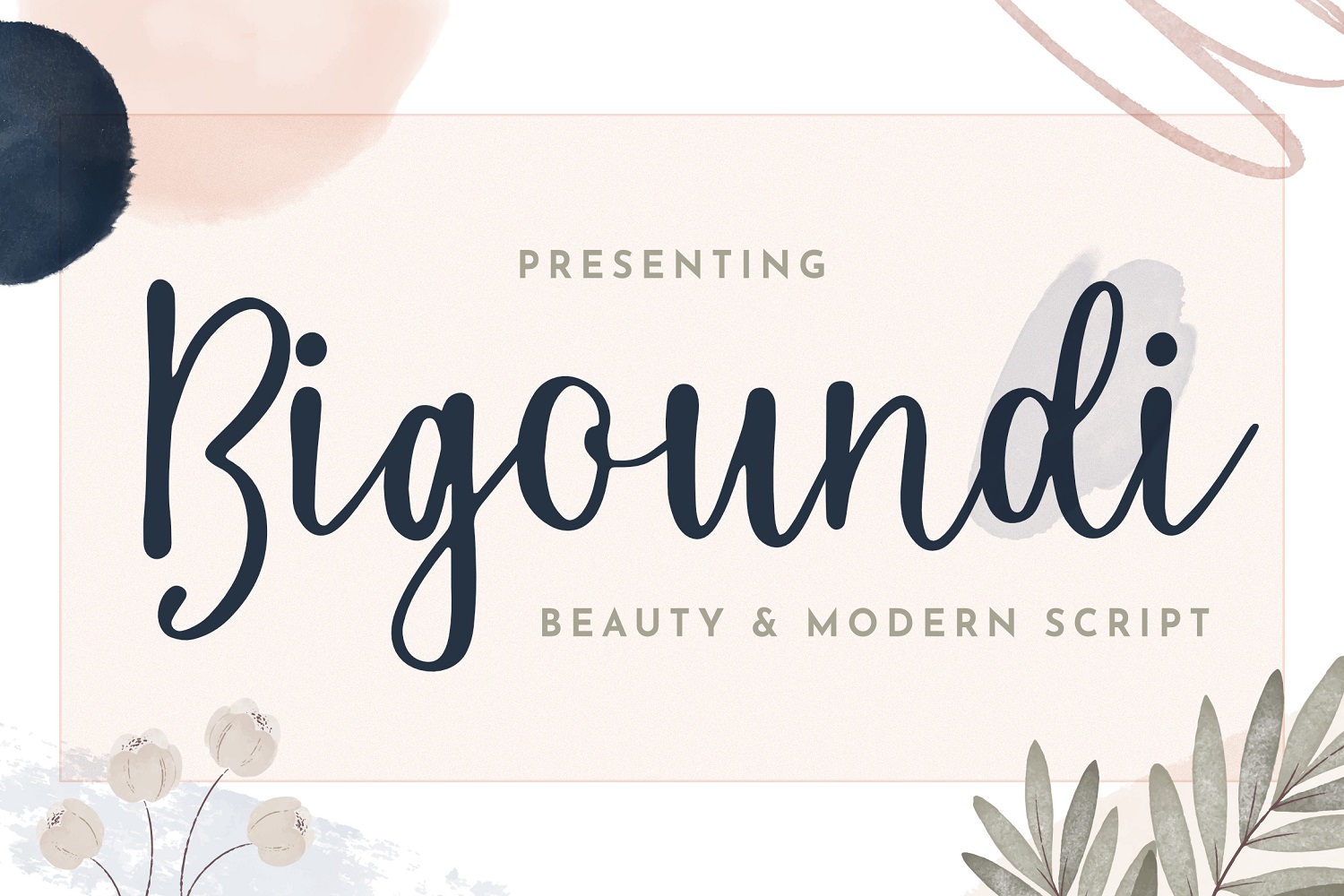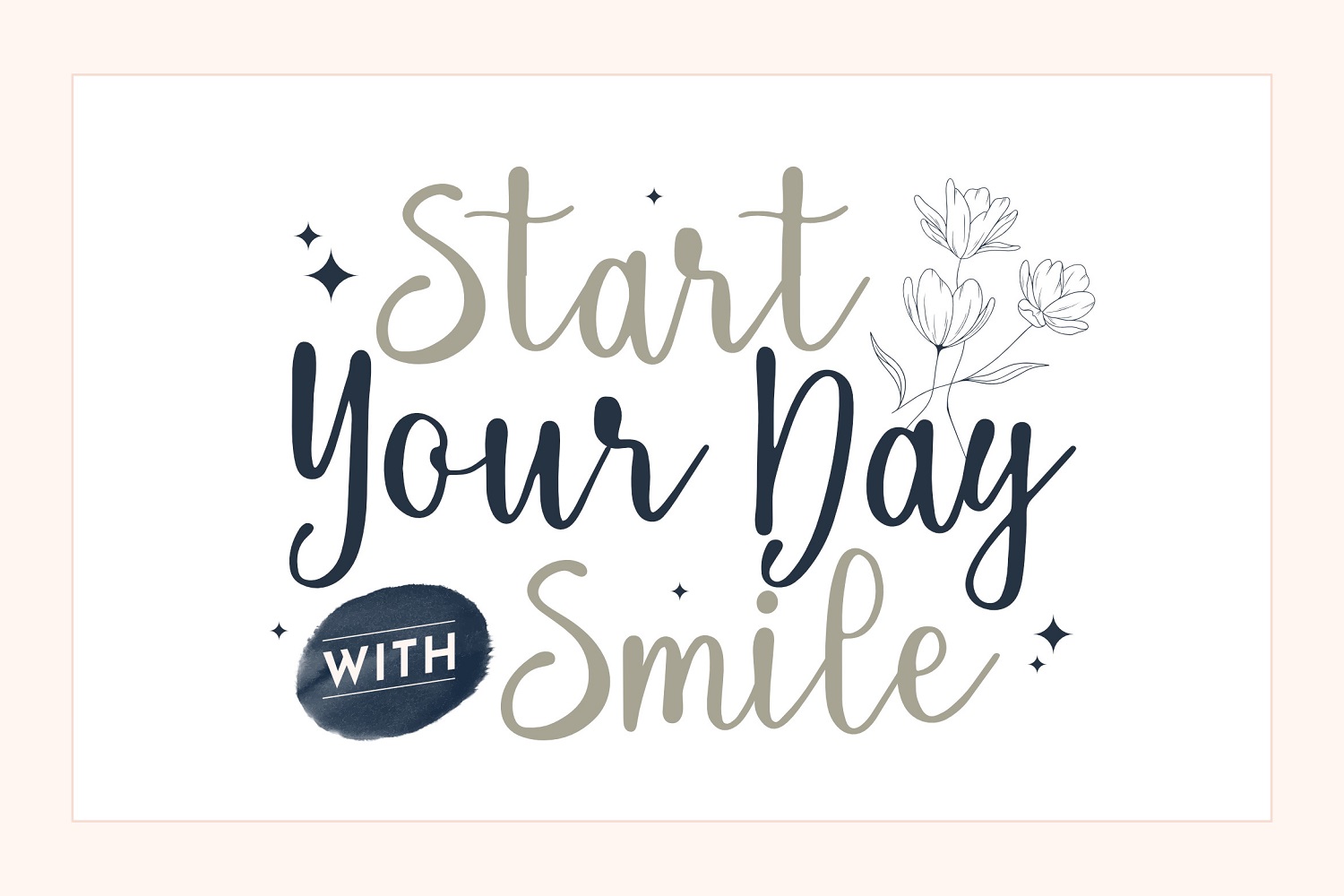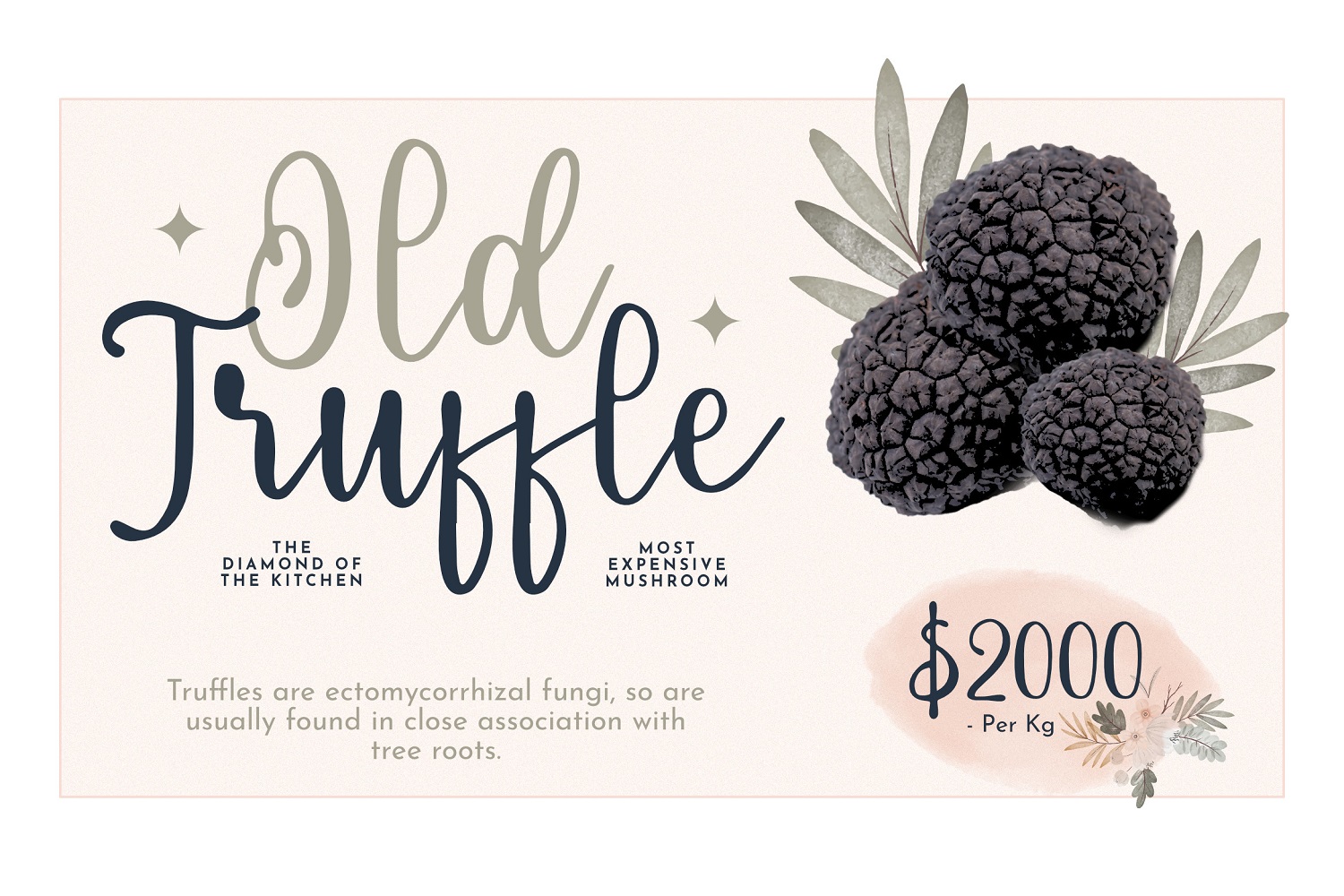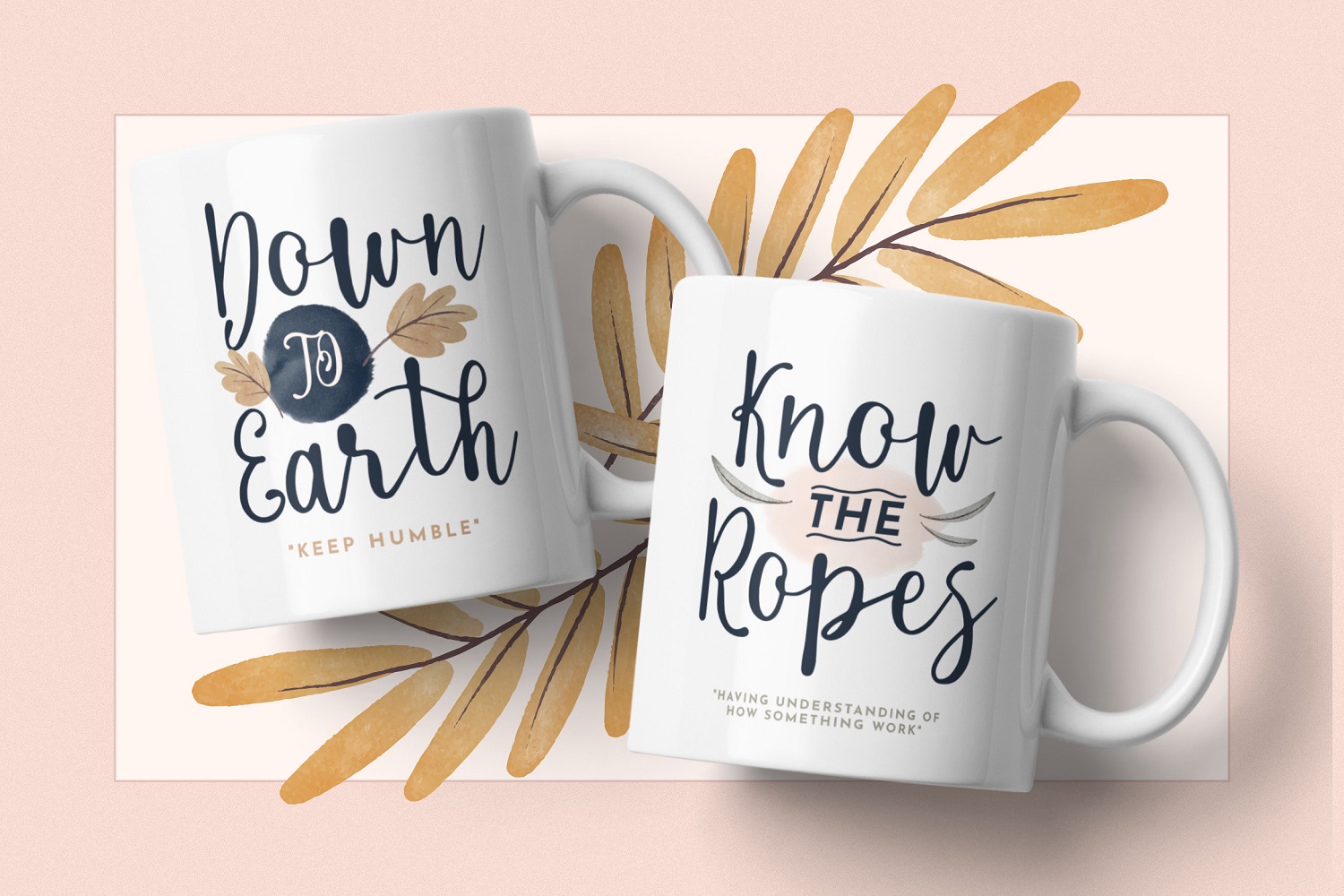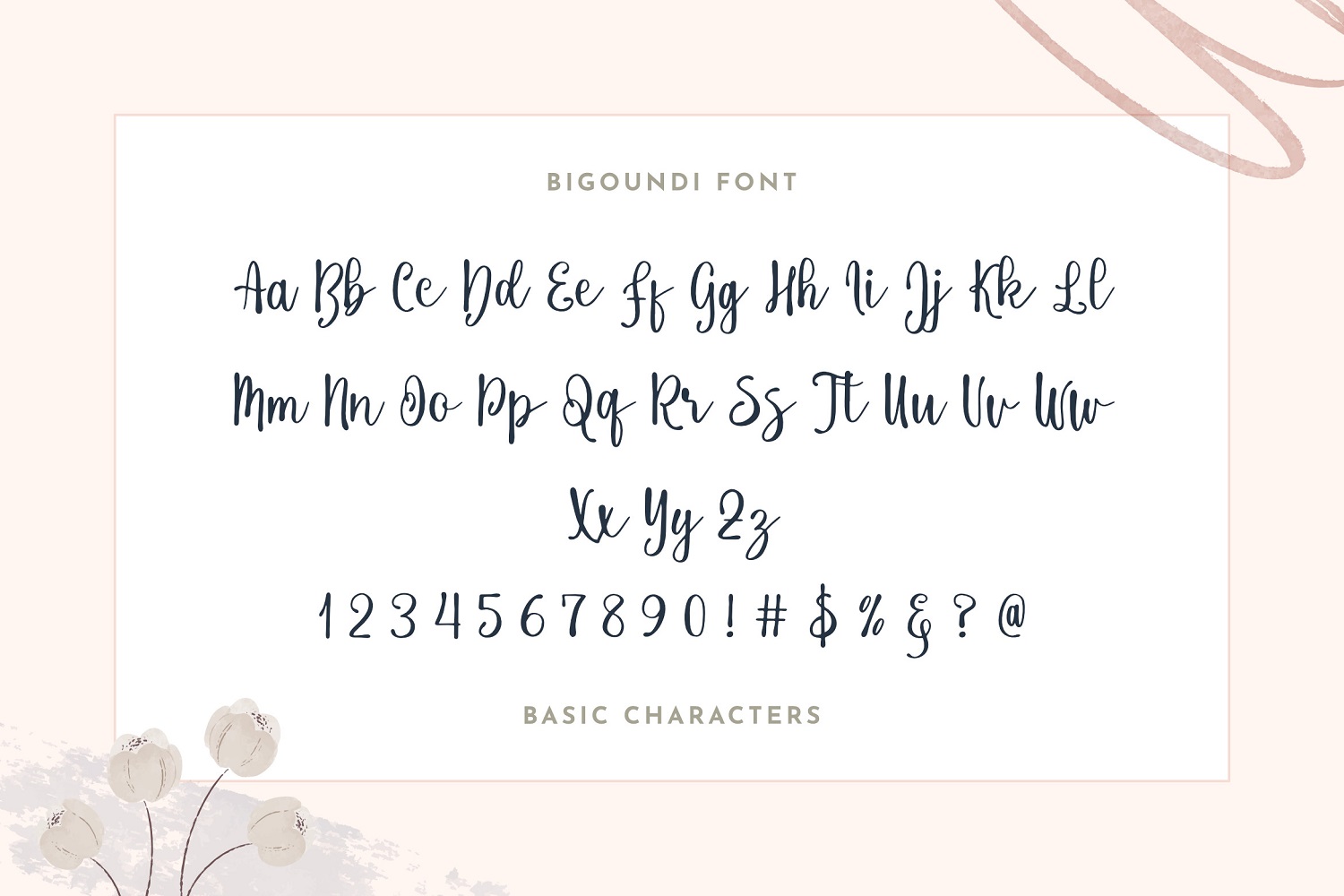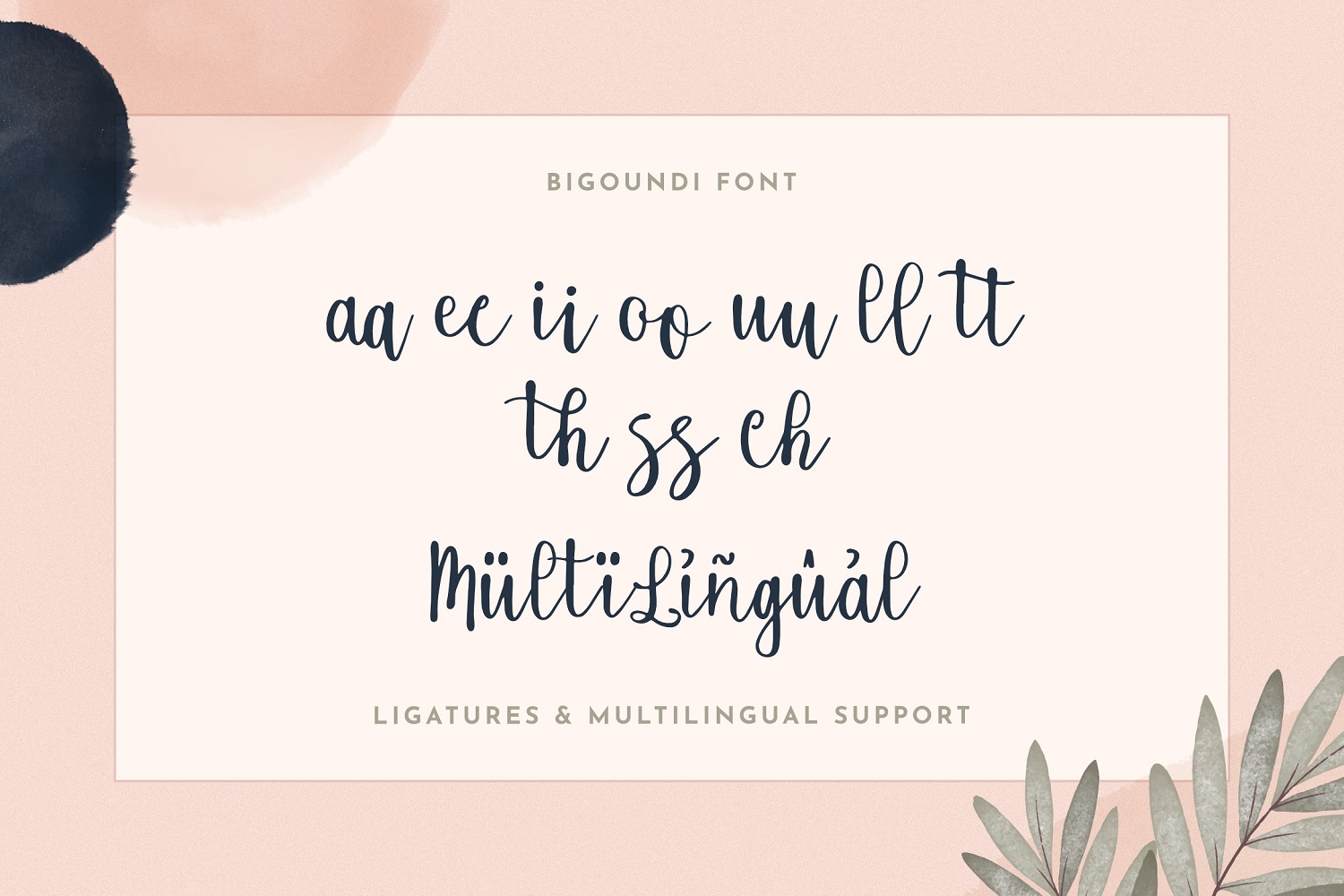
Bigoundi is a modern beauty script font with an elegant handwritten style. Its graceful curves and soft flow make it perfect for branding, wedding invitations, product packaging, and quote designs. With a natural brush touch and smooth ligatures, Bigoundi brings a charming and sophisticated feel to any creative project.
This font includes uppercase and lowercase characters, numbers, punctuation, and multilingual support. Bigoundi also features stylish ligatures that enhance the flow of each word, making it ideal for feminine themes, lifestyle designs, and aesthetic stationery. It’s a perfect choice for designers seeking a modern, handwritten script with a refined and organic look.
Bigoundi